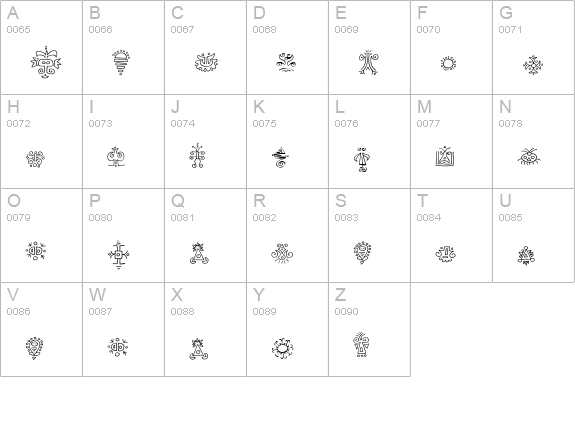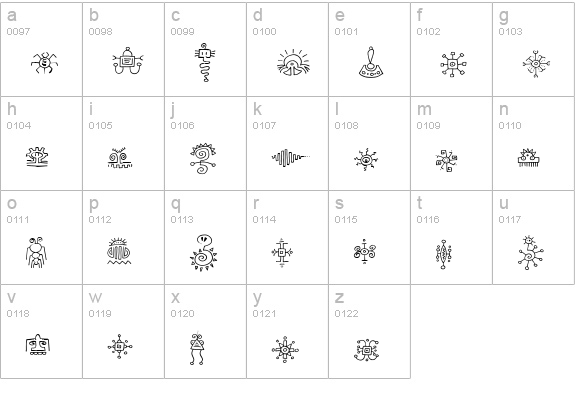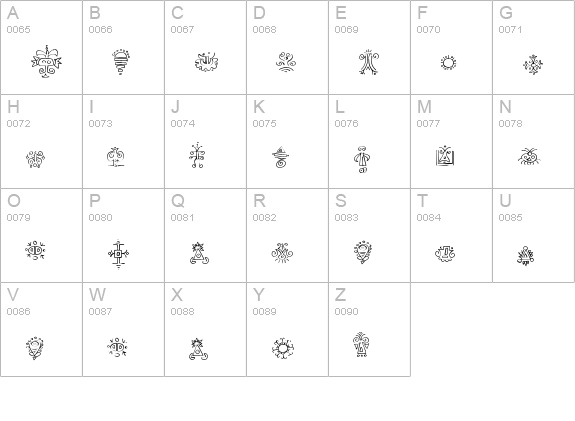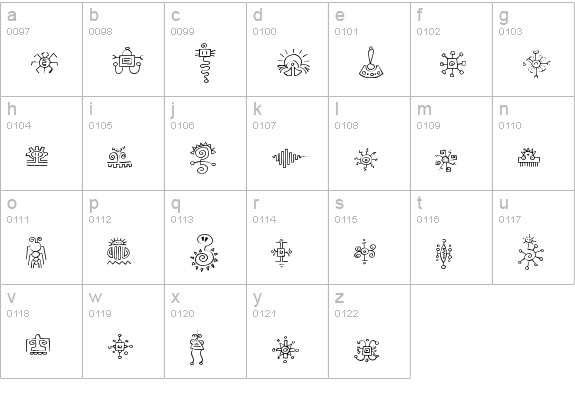
Jiggery pokery Font Details
The Jiggery Pokery font is a whimsical and playful typeface that exudes charm and character. With its quirky letterforms and unique design elements, this font is perfect for adding a touch of fun and creativity to your projects. Whether you're working on a children's book, a greeting card, or a poster, the Jiggery Pokery font will bring a sense of whimsy and lightheartedness to your work. Best of all, the Jiggery Pokery font is available for free download at FontsMarket.com. Simply visit the website to access this delightful font and start incorporating its playful charm into your designs today. Let your creativity run wild with the Jiggery Pokery font and bring a smile to your audience's faces with its enchanting style.